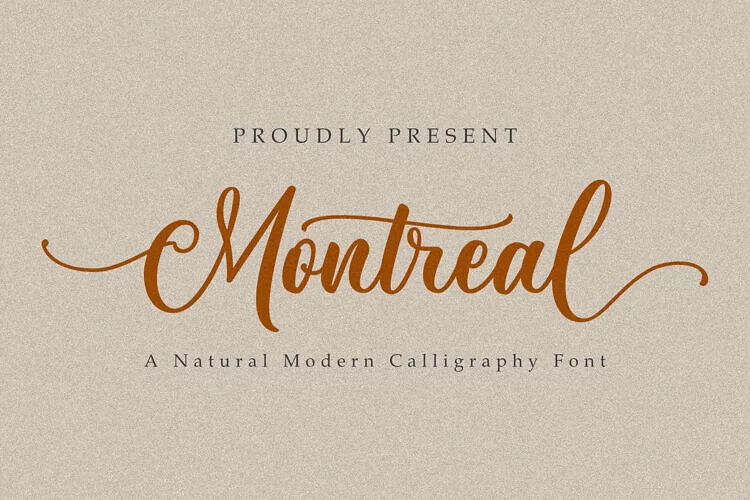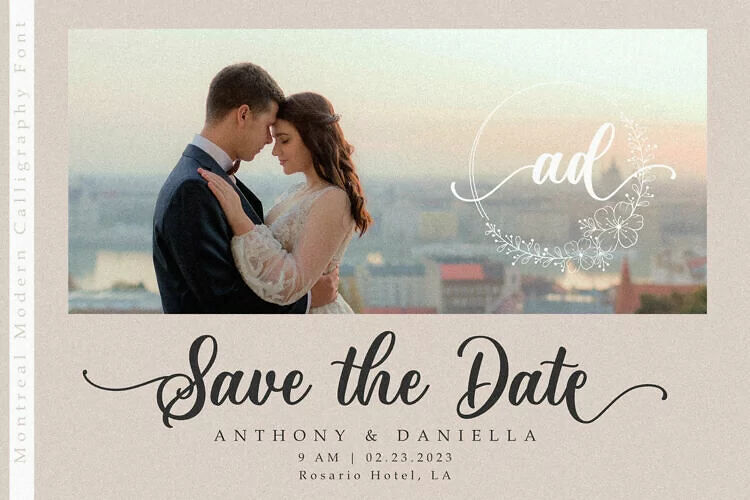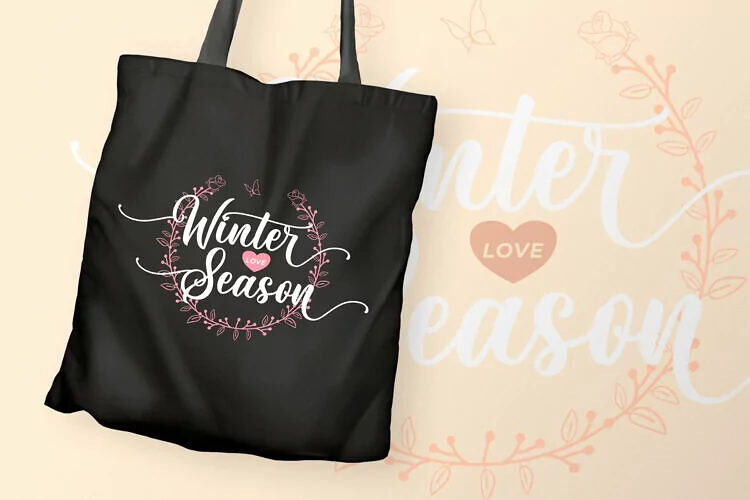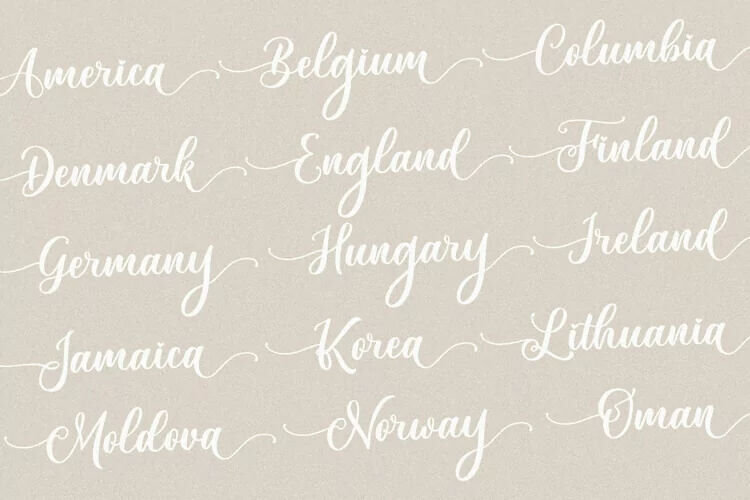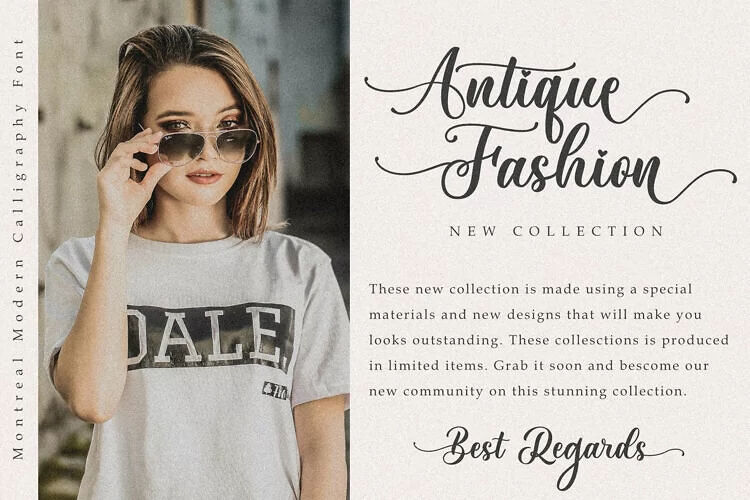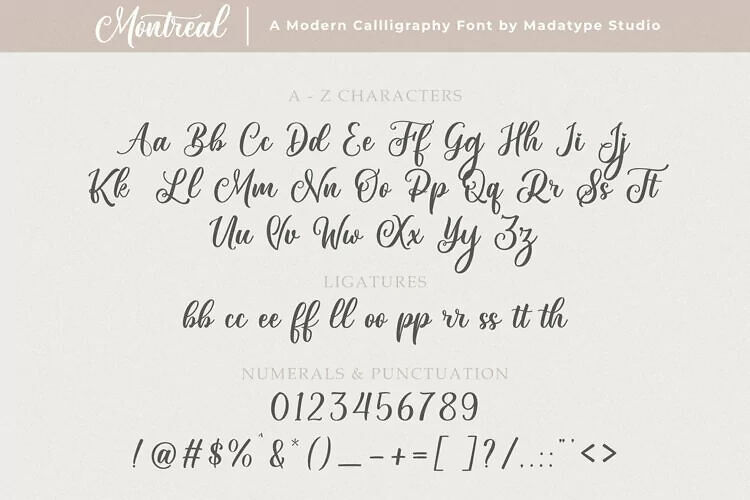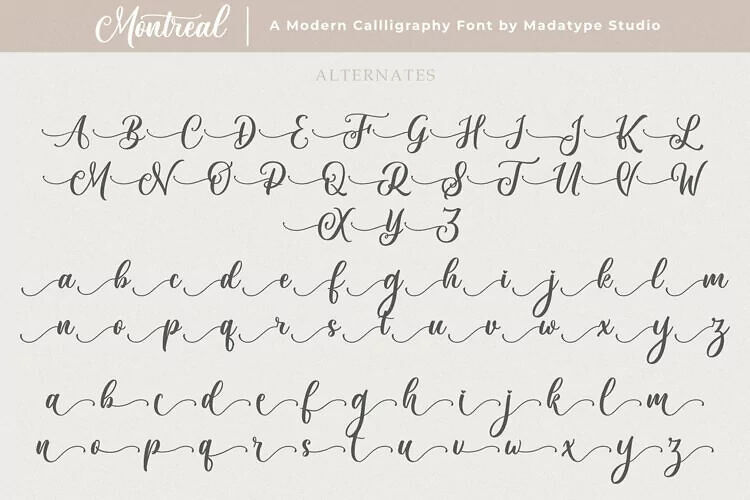
Montreal is a modern brush script font designed to bring elegance and creativity to your projects. Ideal for logos, banners, posters, invitations, and more, it offers versatile alternates and ligatures for endless customization.
Perfect for weddings, fashion, beauty, holidays, or artistic themes, this handwritten-style font delivers a unique, eye-catching touch. If you need a stylish brush script font, Montreal is the perfect choice.